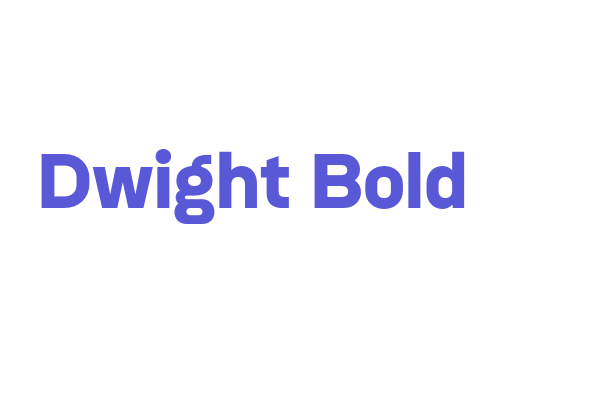
Dwight Bold is a sleek and modern sans-serif font designed by Romain Oudin. With a bold weight, this font is perfect for making a statement in headlines, titles, and branding materials. Its clean lines and simple design make it a versatile choice for a wide range of design projects.
Font Name: Dwight Bold
Designer: Romain Oudin
Font Family: Dwight